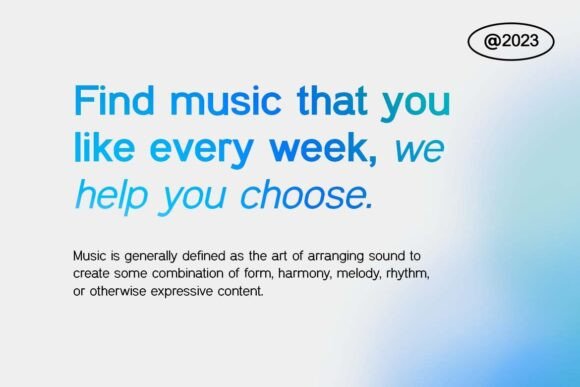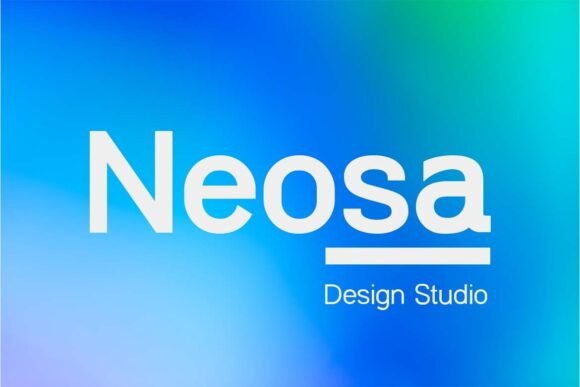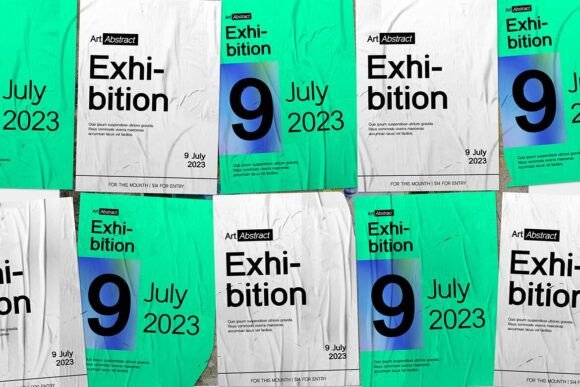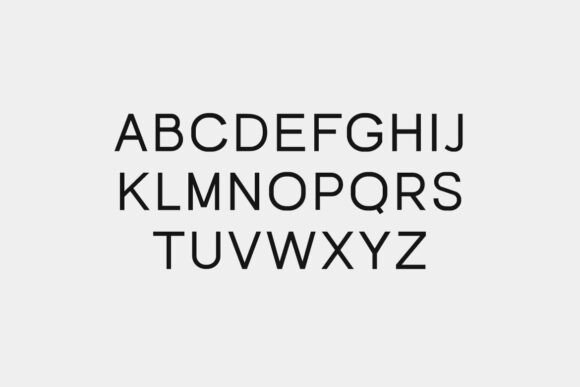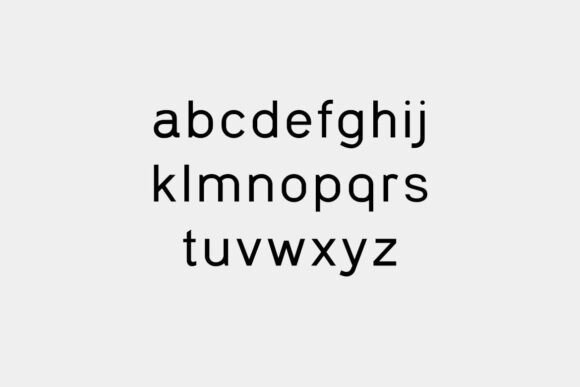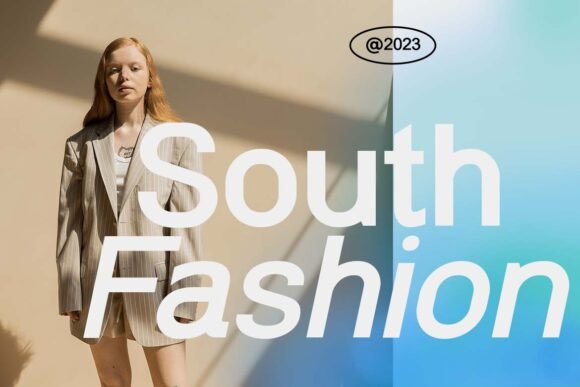
Introducing Galvanizer Font: The Epitome of Elegance and Sophistication
In the realm of typography, the right font can elevate a design from ordinary to extraordinary. For those seeking a modern, elegant, and stylish sans serif font, look no further than Galvanizer. This stunning display font is designed to add a touch of class and sophistication to a wide range of projects, making it a versatile choice for designers and crafters alike.
The Galvanizer Elegant Sans Serif Font: A Masterpiece of Modern Typography
Galvanizer Font is a masterpiece of modern typography, boasting clean lines, precise curves, and a sleek aesthetic that exudes elegance and refinement. Its sans serif design gives it a contemporary feel, while its elegant and stylish appearance makes it perfect for those seeking a sophisticated look. Whether you’re working on a logo, stationery, or a website header, Galvanizer is sure to make a lasting impression.
Ideal for a Wide Range of Projects
One of the standout features of Galvanizer Font is its versatility. This font is ideally suited for a wide variety of projects, including:
- Signature and stationery designs
- Logo creation
- Wedding and event typography
- Magazine and book covers
- Website headers and branding
- Fashion-related branding and editorial design
Whether you’re a designer, craftsperson, or DIY enthusiast, Galvanizer Font is the perfect choice for anyone looking to add a touch of elegance and sophistication to their project.
Masculine and Feminine Qualities: A Font for All
Galvanizer Font is a unique and versatile typeface that displays both masculine and feminine qualities, making it perfect for a wide range of applications. Its elegant and refined appearance makes it suitable for projects that require a touch of sophistication, while its modern and sleek design ensures it remains relevant in a variety of contexts.
Why Choose Galvanizer Font?
So why choose Galvanizer Font for your next project? Here are just a few reasons:
- Elegant and sophisticated design: Galvanizer Font boasts a stunning, modern design that exudes elegance and refinement.
- Versatile and adaptable: This font is suitable for a wide range of projects, from logos and stationery to website headers and fashion branding.
- Masculine and feminine qualities: Galvanizer Font displays both masculine and feminine qualities, making it perfect for a variety of applications.
- Easy to read and use: Despite its elegant design, Galvanizer Font remains easy to read and use, making it perfect for body text and headlines.
In conclusion, Galvanizer Font is a stunning and versatile typeface that is sure to elevate any design project. Its elegant and sophisticated design, combined with its versatility and adaptability, make it the perfect choice for designers, crafters, and DIY enthusiasts alike. Whether you’re working on a logo, stationery, or website header, Galvanizer Font is sure to make a lasting impression.